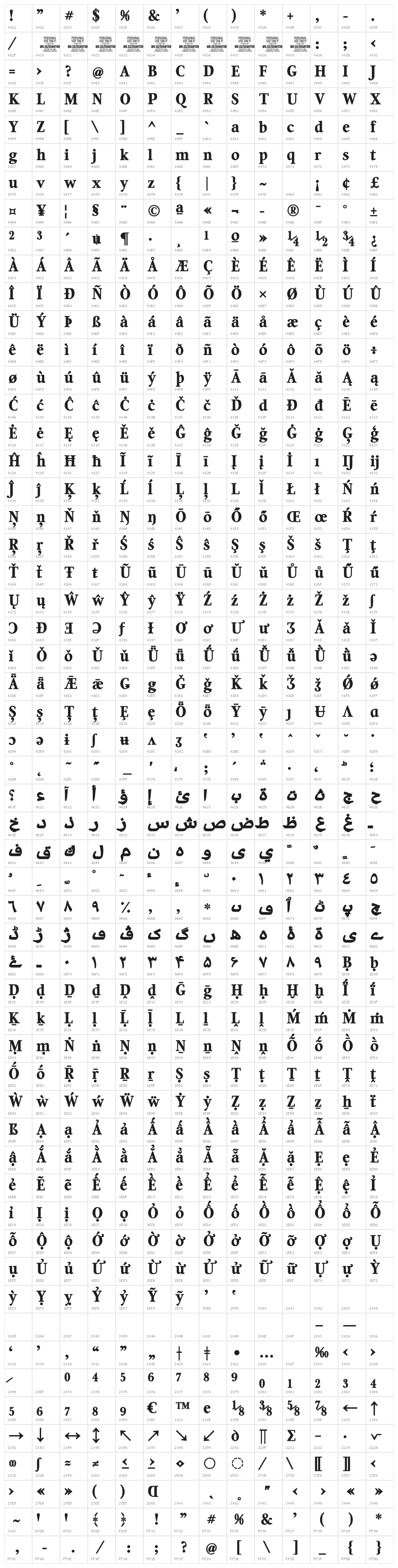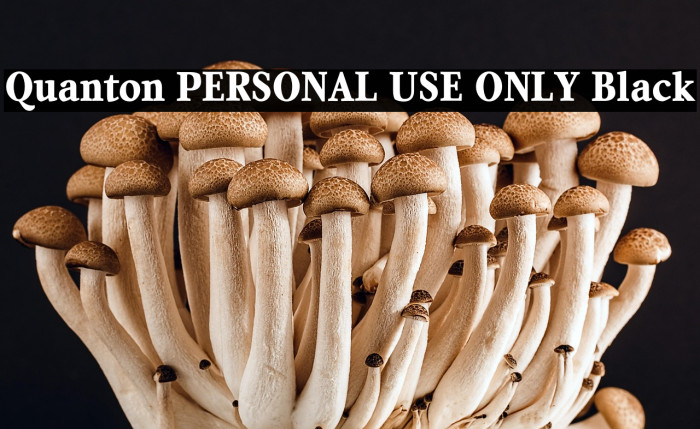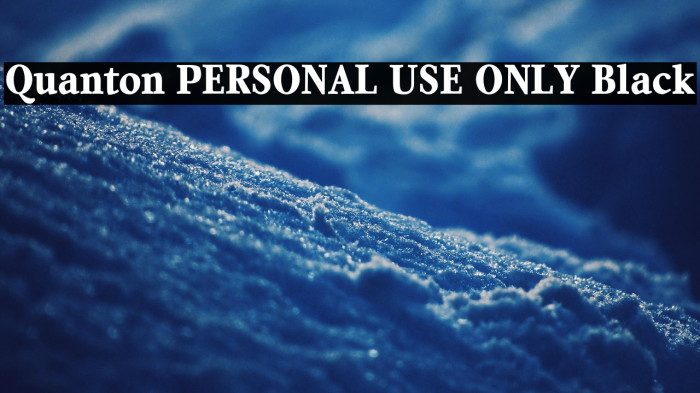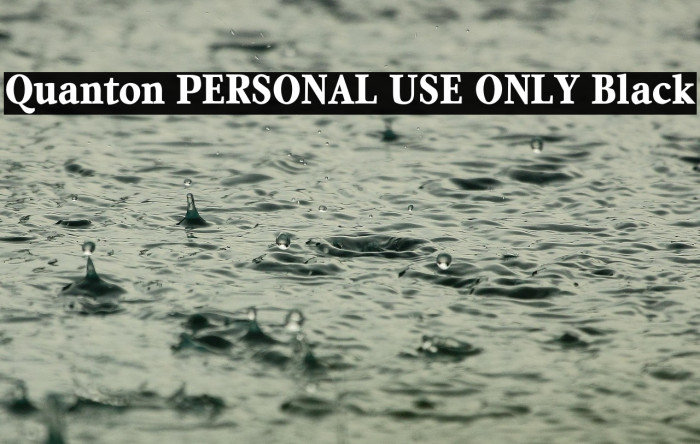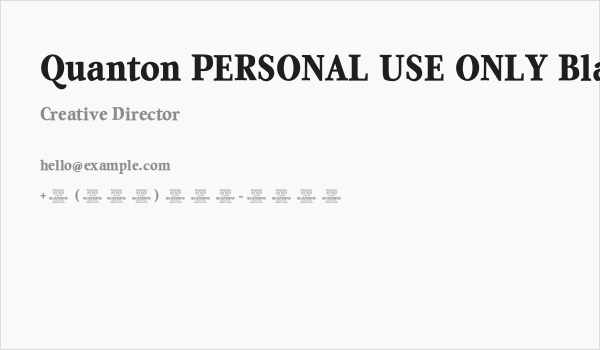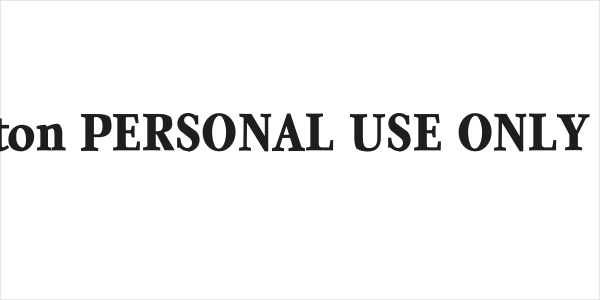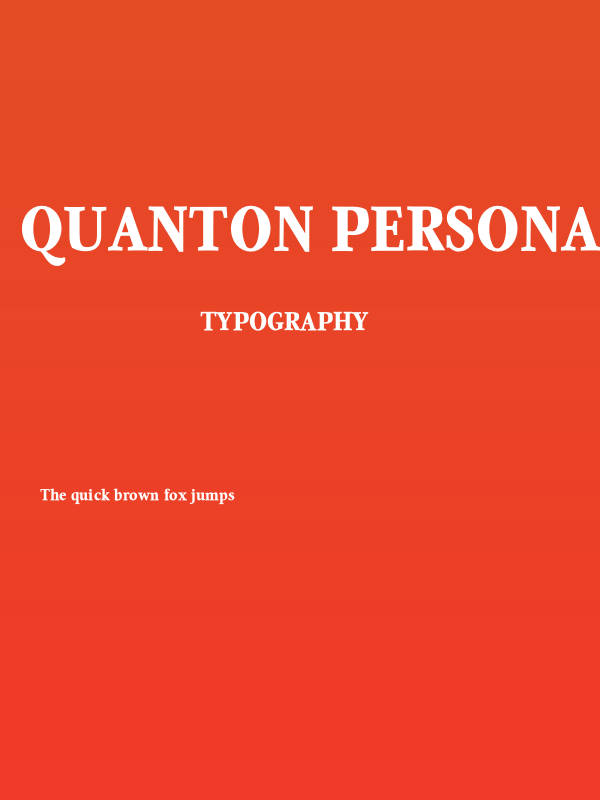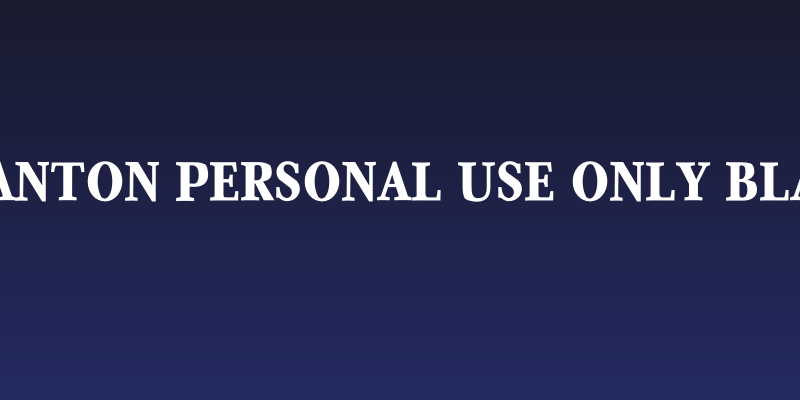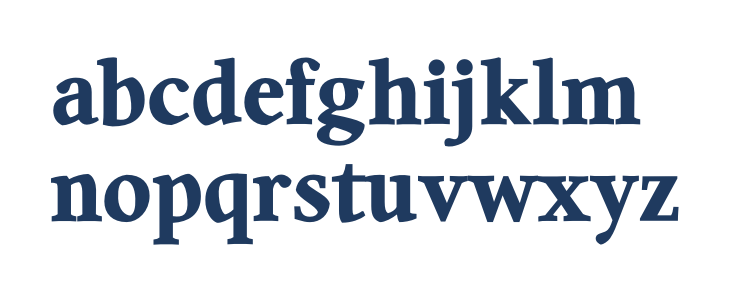
Quanton PERSONAL USE ONLY Black Font
Quanton PERSONAL USE ONLY Black Description
This font features a bold and commanding presence with its thick, strong strokes and high contrast between thick and thin lines. The serif style adds a touch of classic elegance, making it suitable for impactful headlines and titles. The uppercase letters are particularly striking, with a robust and authoritative appearance. The lowercase letters maintain a consistent style, offering readability and balance. The numerals and special characters are designed to complement the overall aesthetic, ensuring versatility across various uses.